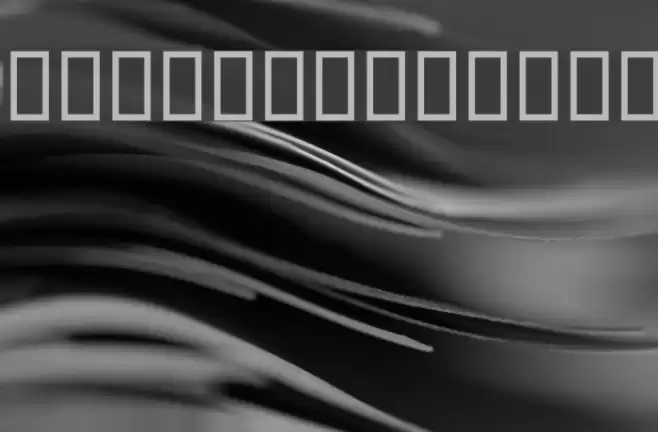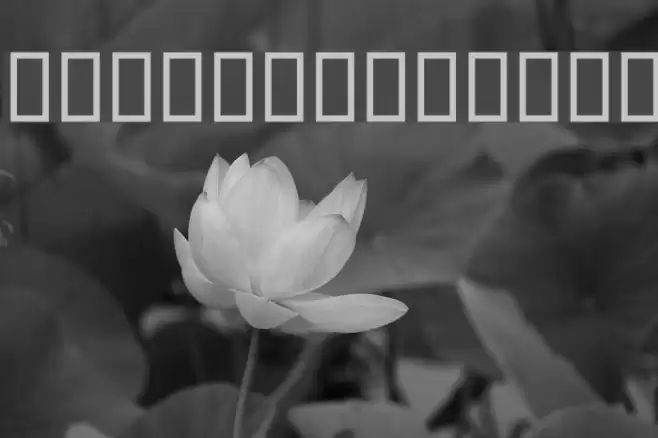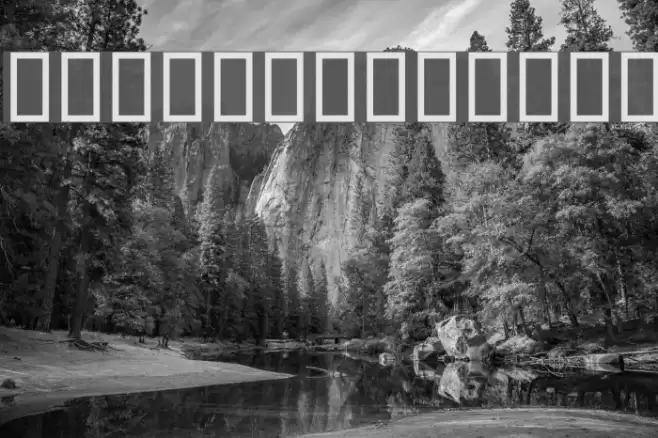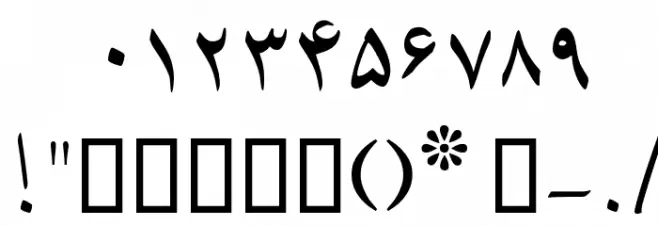
Kabul Type Font
Kabul Type Description
This font features a unique and artistic style, characterized by its flowing, cursive-like strokes that give it a handwritten appearance. The letters are elegantly crafted with a consistent slant, adding a sense of motion and fluidity. The numbers maintain the same stylistic approach, ensuring uniformity across all characters. Special characters are thoughtfully designed to match the overall aesthetic, making this font suitable for creative and expressive projects. The font's distinctiveness lies in its ability to convey a sense of personal touch and creativity, making it ideal for projects that require a more human and artistic feel.
A cursive, handwritten-style font with flowing, artistic strokes from Uncategorized fonts.
- Proposed Projects: Ideal for invitations, greeting cards, artistic posters, and branding materials that require a personal touch.
- Overall Style: Artistic, Creative
- Use Case: Logos, Invitations, Artistic Posters